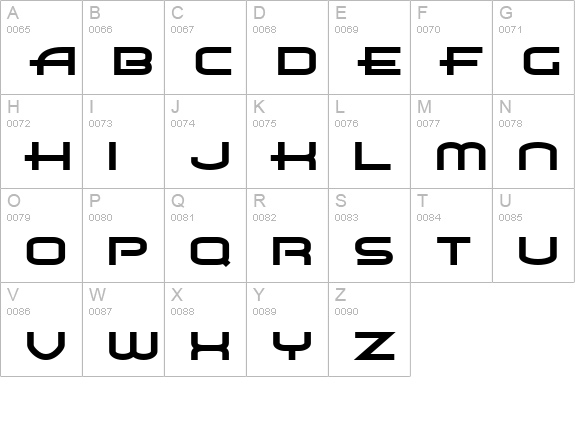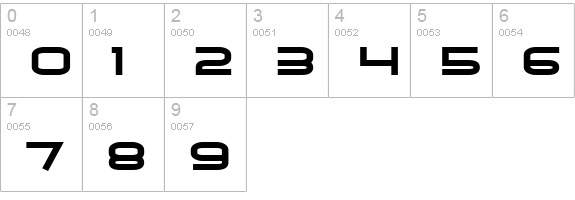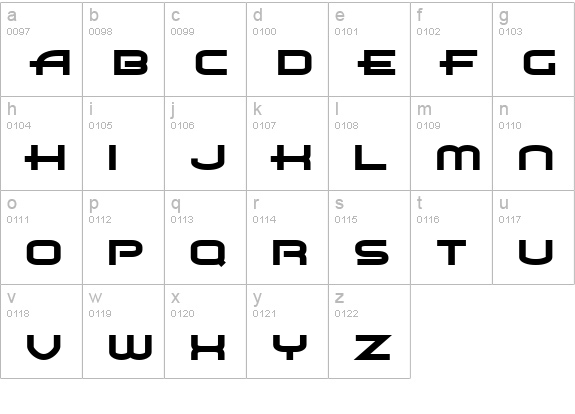
Air Flow BTN Hv font is a bold and striking typeface that exudes power and energy. With its strong, assertive letterforms and clean lines, this font is perfect for making a statement in your designs. The high visibility of Air Flow BTN Hv makes it ideal for headlines, logos, posters, and other display purposes where you want your message to stand out. Best of all, Air Flow BTN Hv is available for free download at FontsMarket.com. You can easily add this impressive font to your collection without breaking the bank. Whether you're a designer looking for a bold new typeface or just someone who appreciates high-quality fonts, Air Flow BTN Hv is sure to make a lasting impression.